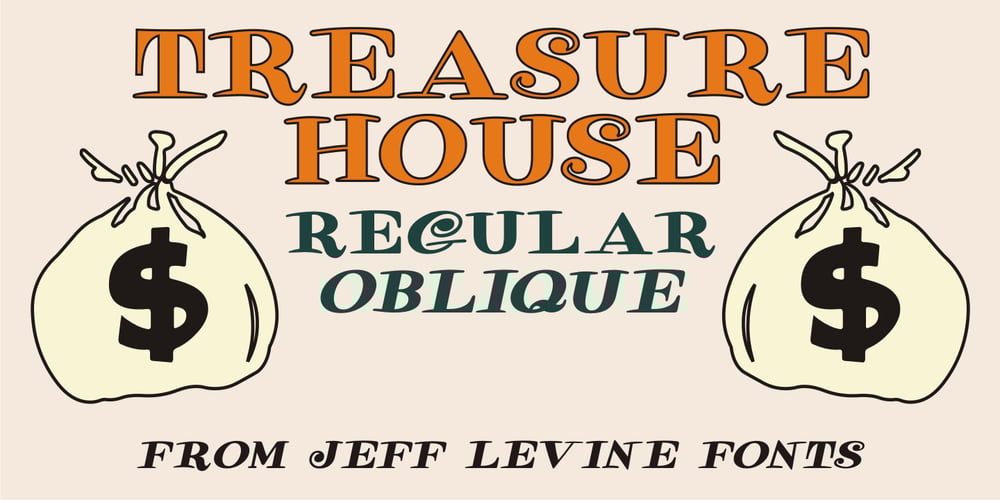
Treasure House JNL Font Family was designed by Jeff Levine and published by Jeff Levine. Treasure House JNL contains 2 styles and family package options. Inspired by the hand lettered title on the cover of a mid-1950s comic book [based on the beloved children’s TV host Captain Kangaroo], Treasure House JNL is a casual, playful serif font available in both regular and oblique versions. From 1955 through 1984, the late Bob Keeshan brought the gentle Captain into the living rooms of eager youngsters who were both taught and entertained each weekday morning.